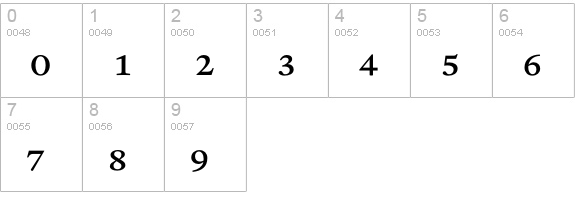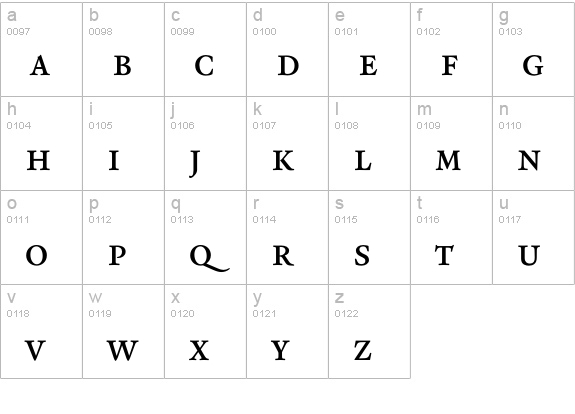
RenardNo2-SmallCaps is a captivating and stylish font that effortlessly combines elegance with a touch of playfulness. Its small capital letters add a unique and sophisticated flair to any design project, making it perfect for headings, logos, and branding materials. This font's sleek and slender letterforms exude a sense of modernity, while still maintaining a timeless appeal. The carefully crafted curves and sharp edges make each character visually striking, ensuring that your text will grab attention and leave a lasting impression. RenardNo2-SmallCaps is not only visually stunning, but it is also incredibly versatile. Whether you are designing for print or web, this font will adapt flawlessly to any medium, ensuring that your message is communicated with clarity and style. The best part? RenardNo2-SmallCaps is completely free! That's right, you can download this remarkable font for absolutely no cost at FontsMarket.com. This means that you can enjoy all the beauty and functionality of RenardNo2-SmallCaps without having to spend a dime. So don't miss out on this amazing opportunity to enhance your design projects with the elegance and charm of RenardNo2-SmallCaps. Download it now from FontsMarket.com and let your creativity soar.